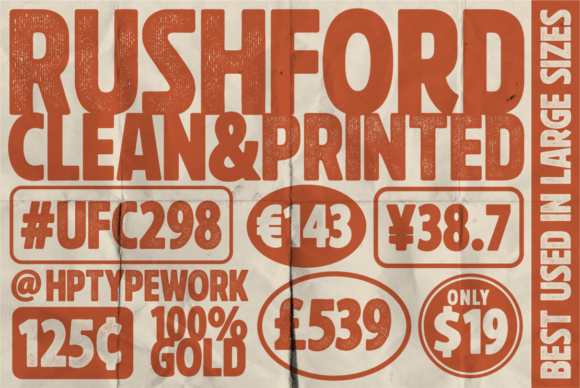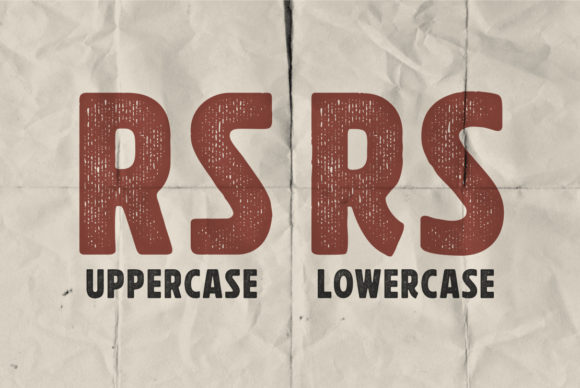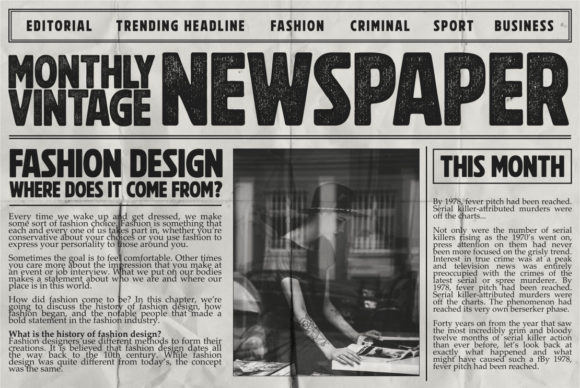
Rushford Font
When choosing a font, it’s important to consider the visual theme of your design. A clean bold font like Rushford can lend a more stronger tone to your design, making it a great choice for Logo or Title. On the other hand, a textured font can lend a more natural printed-looks, making them perfect for designing 70s-80s themed parties. It can be used for various design purposes ; Posters, Logos, Packaging, Books or Movie Titles.